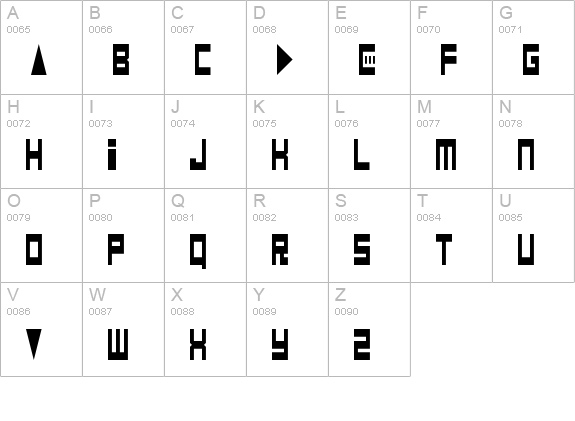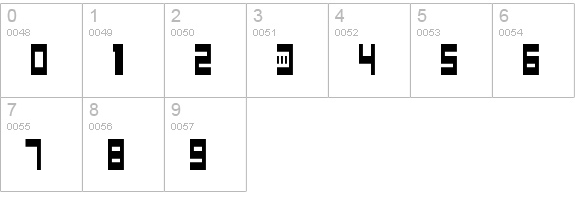
Game Over Dude Font Details
Game Over Dude font is a bold and edgy typeface that exudes a sense of fun and excitement. With its sleek lines and modern design, this font is perfect for creating eye-catching headlines, posters, and branding materials. The unique character shapes and sharp angles of Game Over Dude font make it stand out from the crowd, giving your projects a distinctive and memorable look.